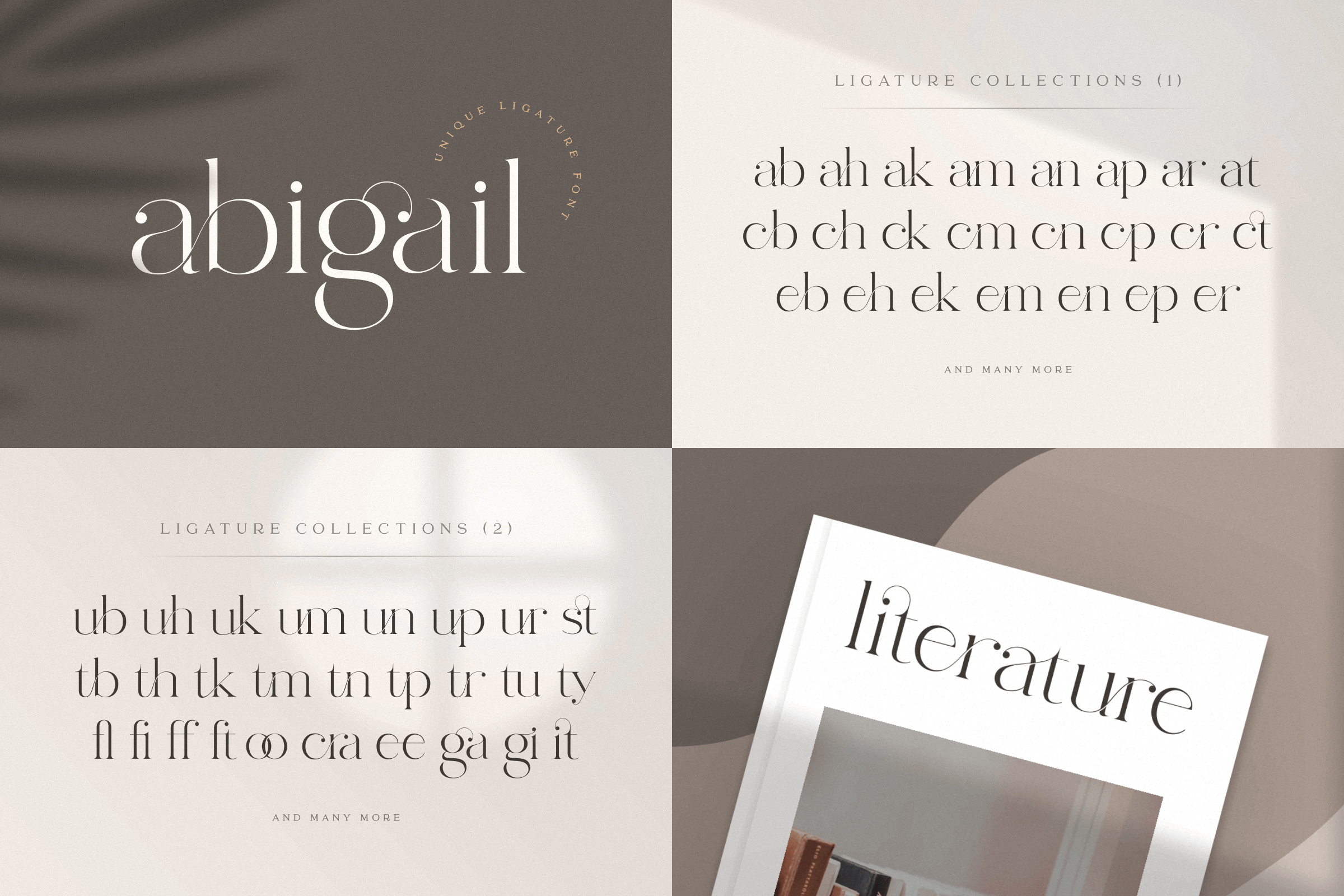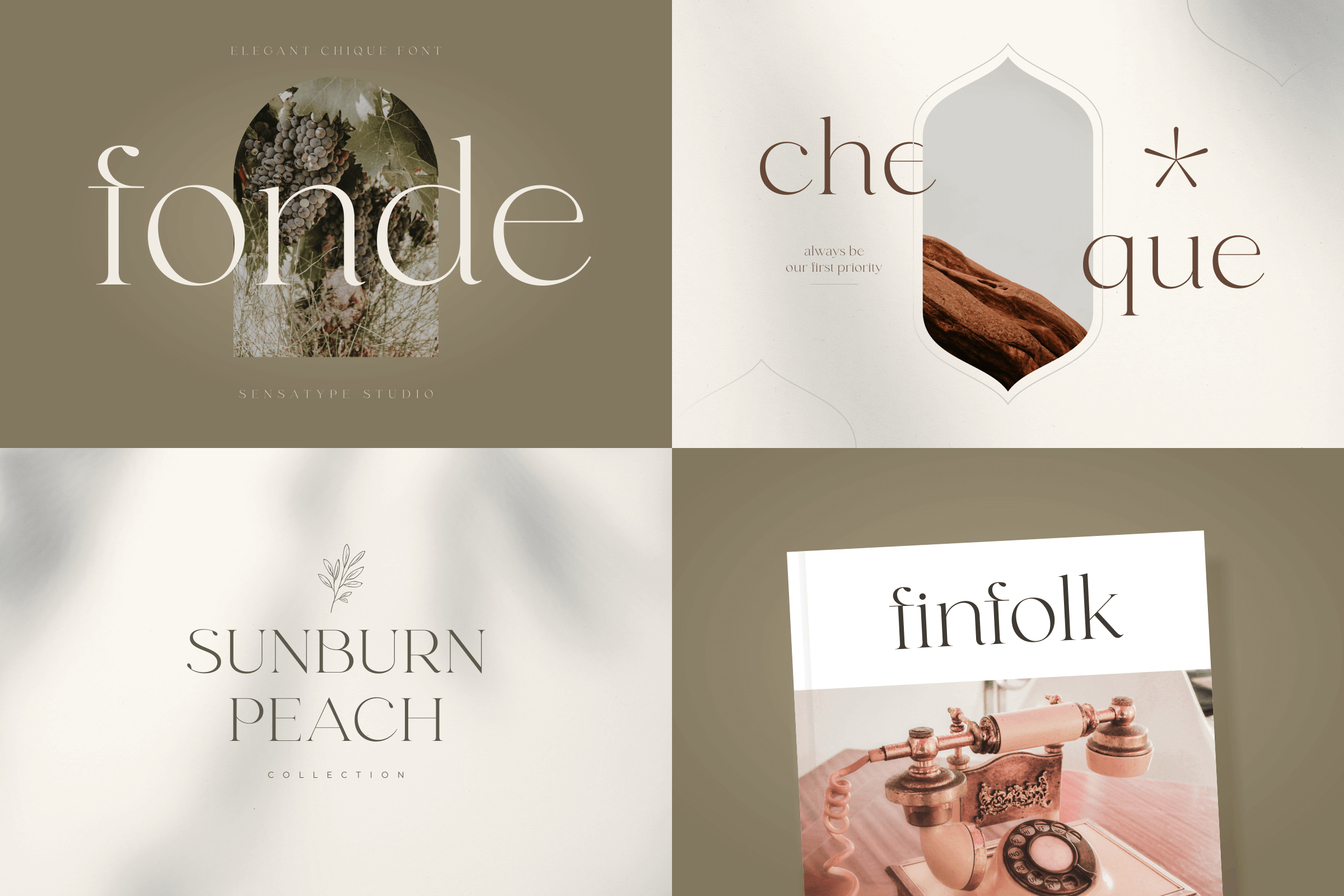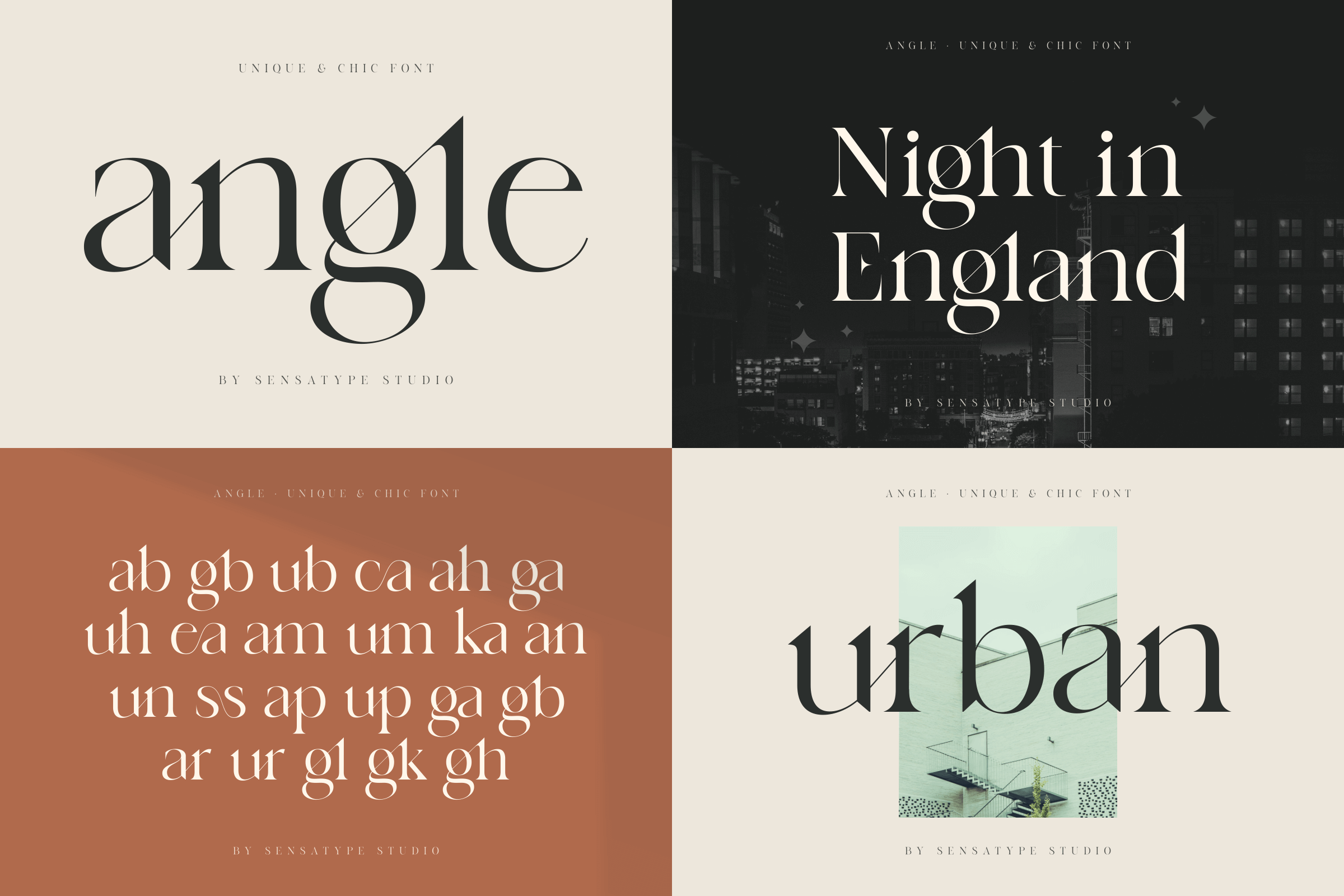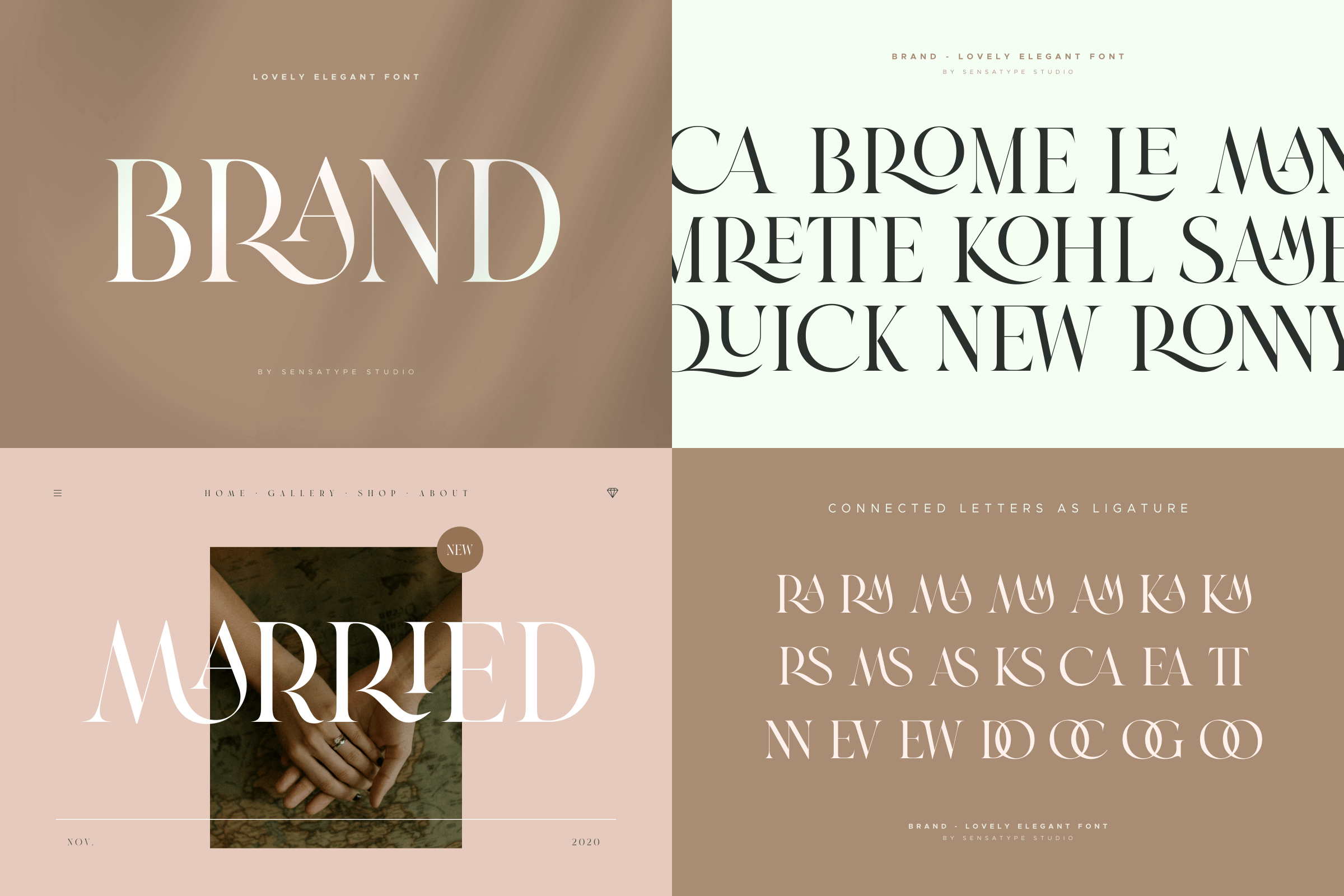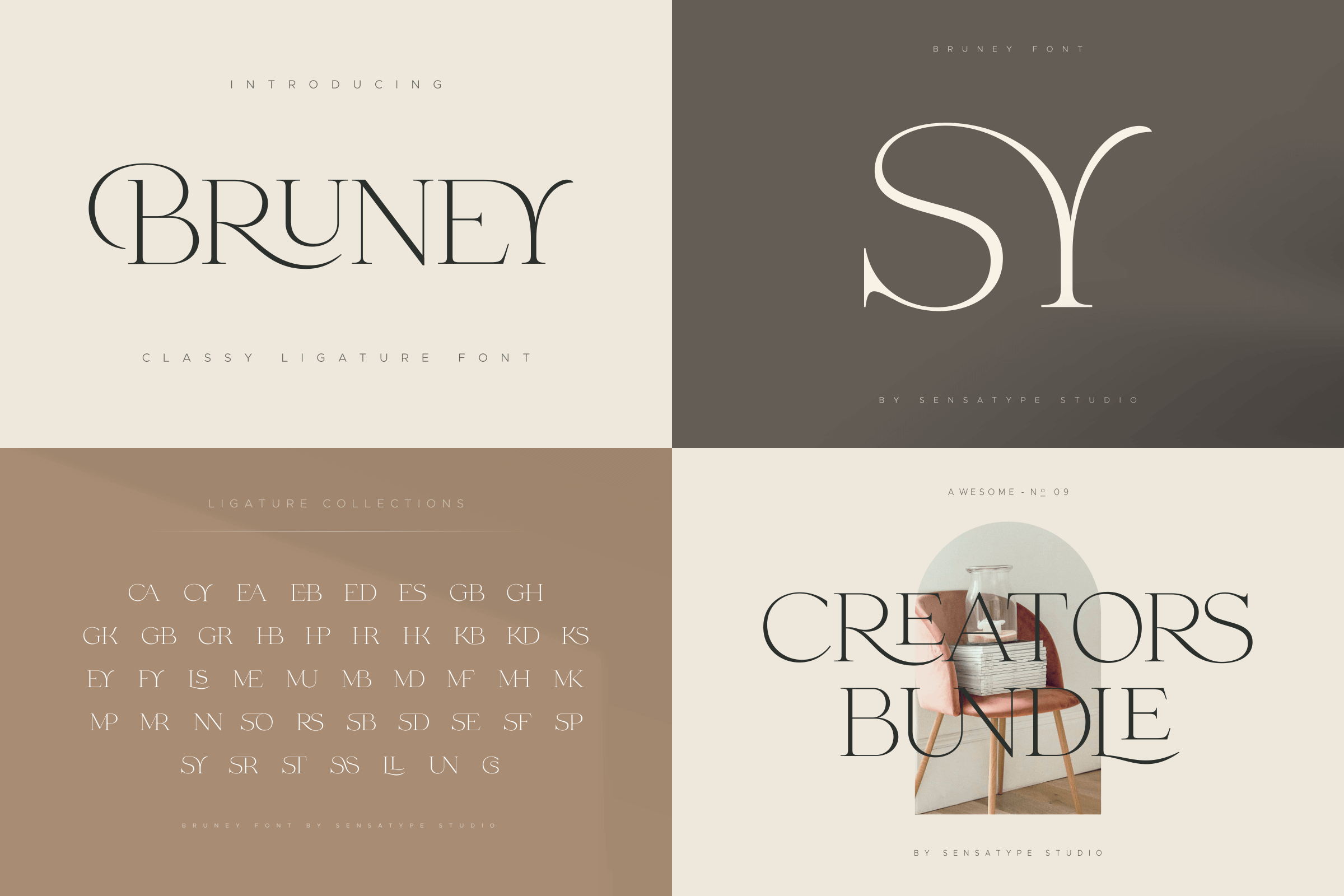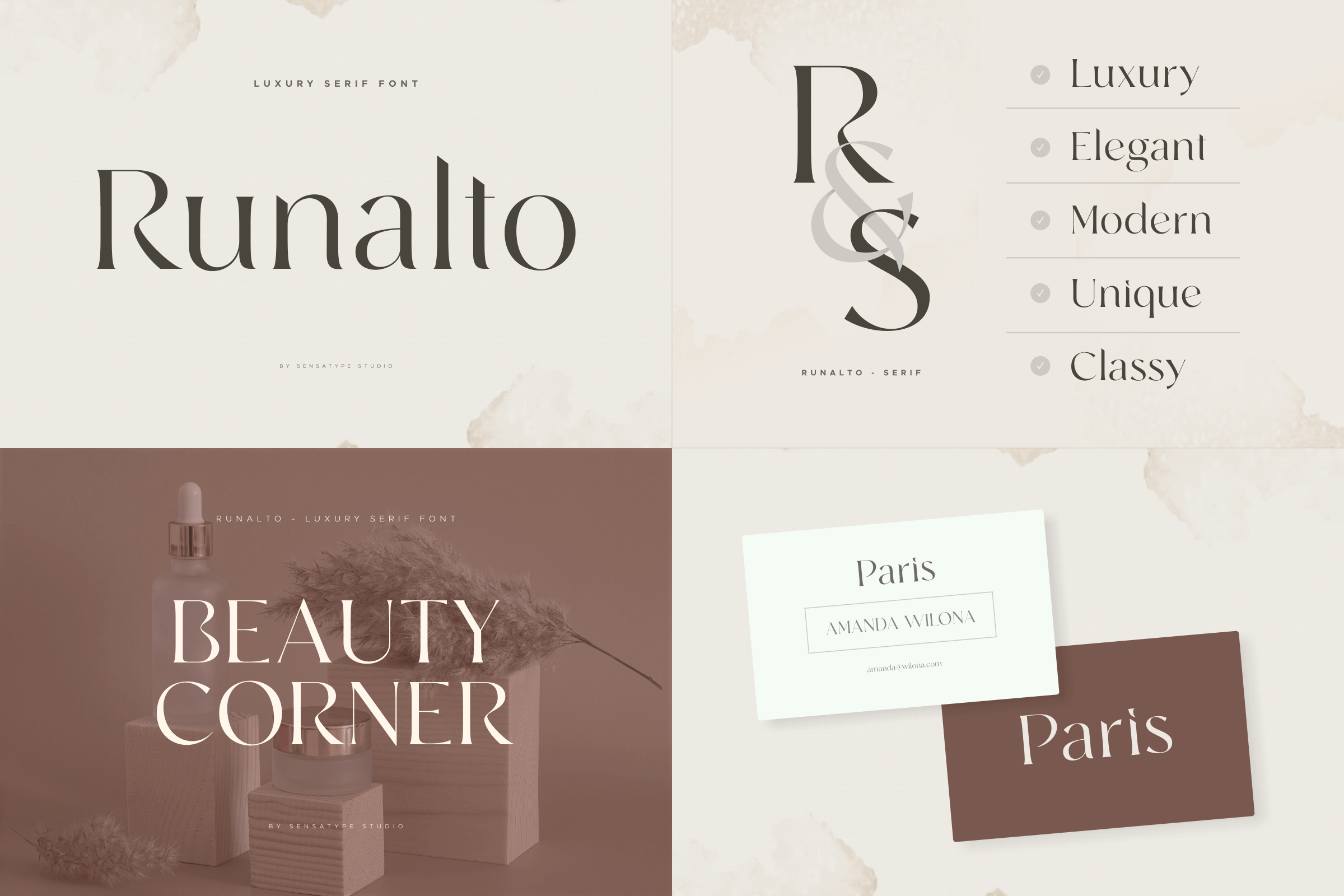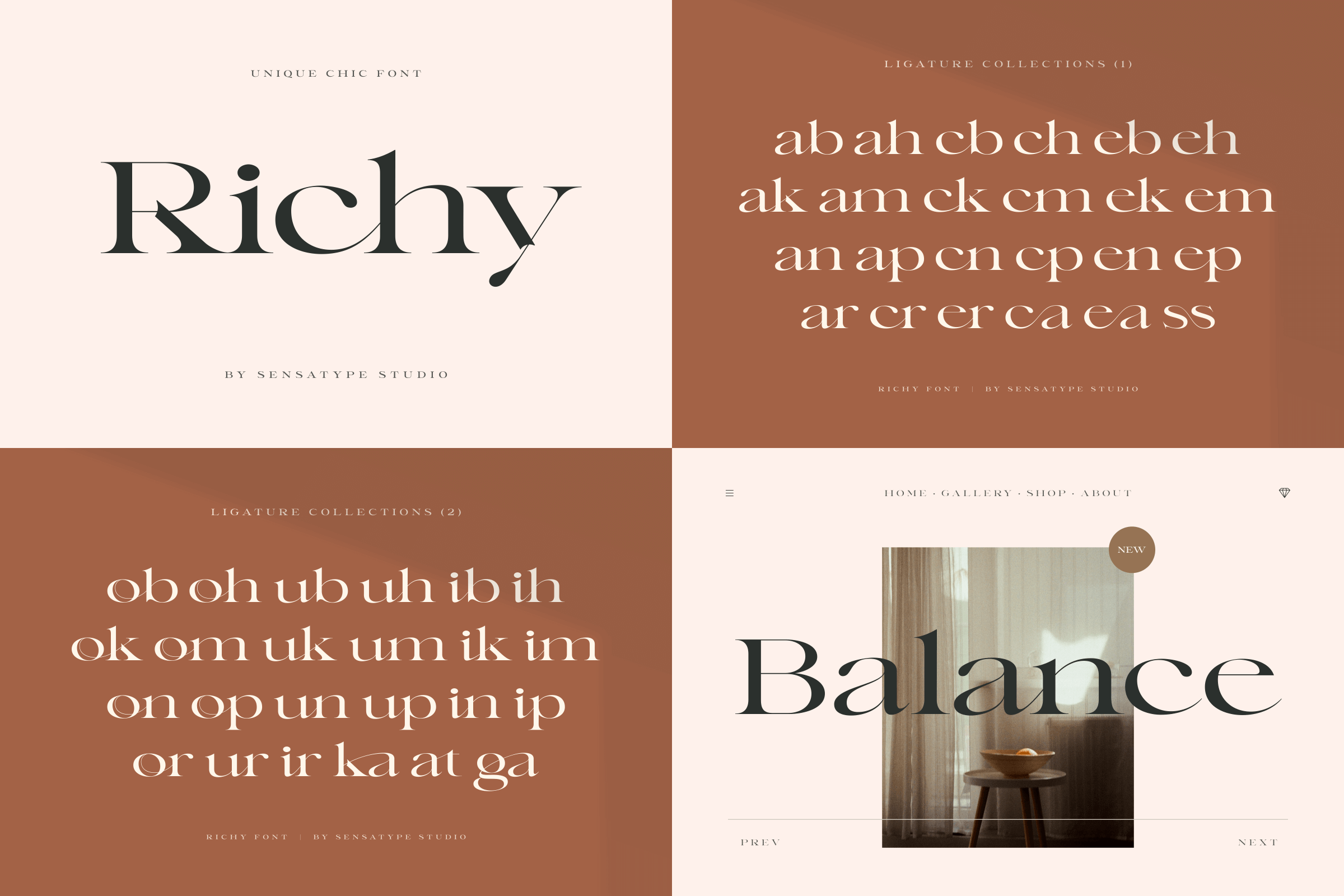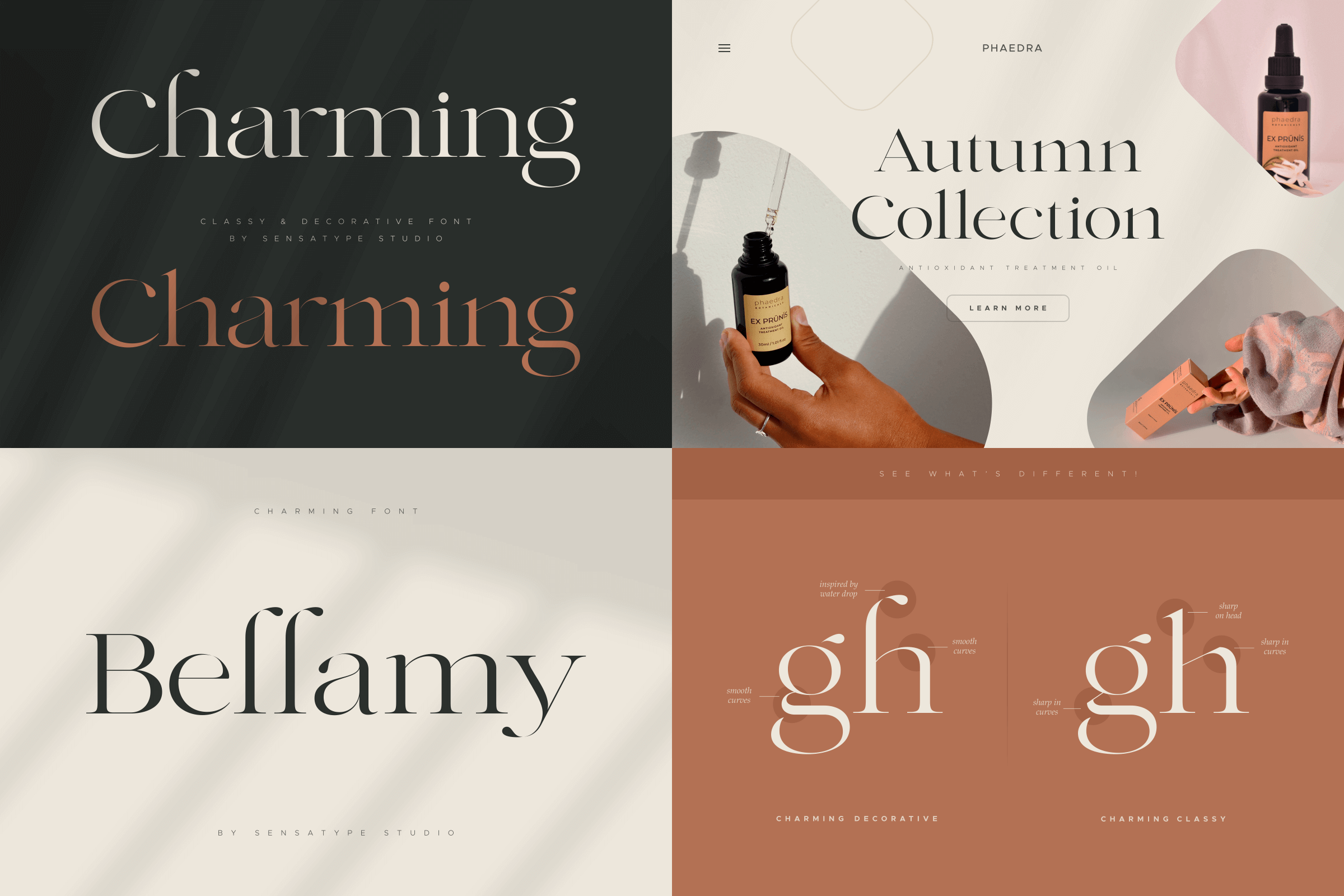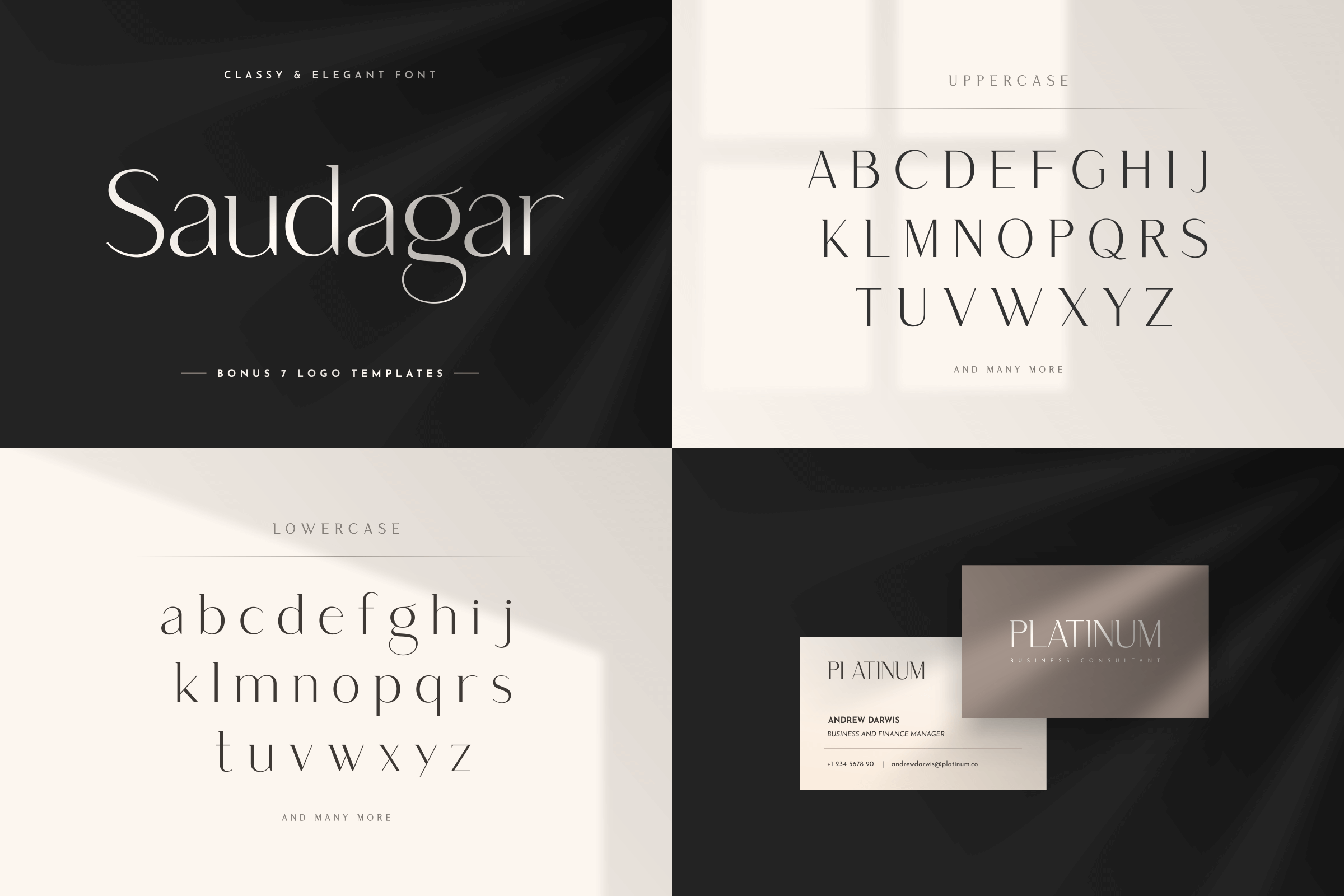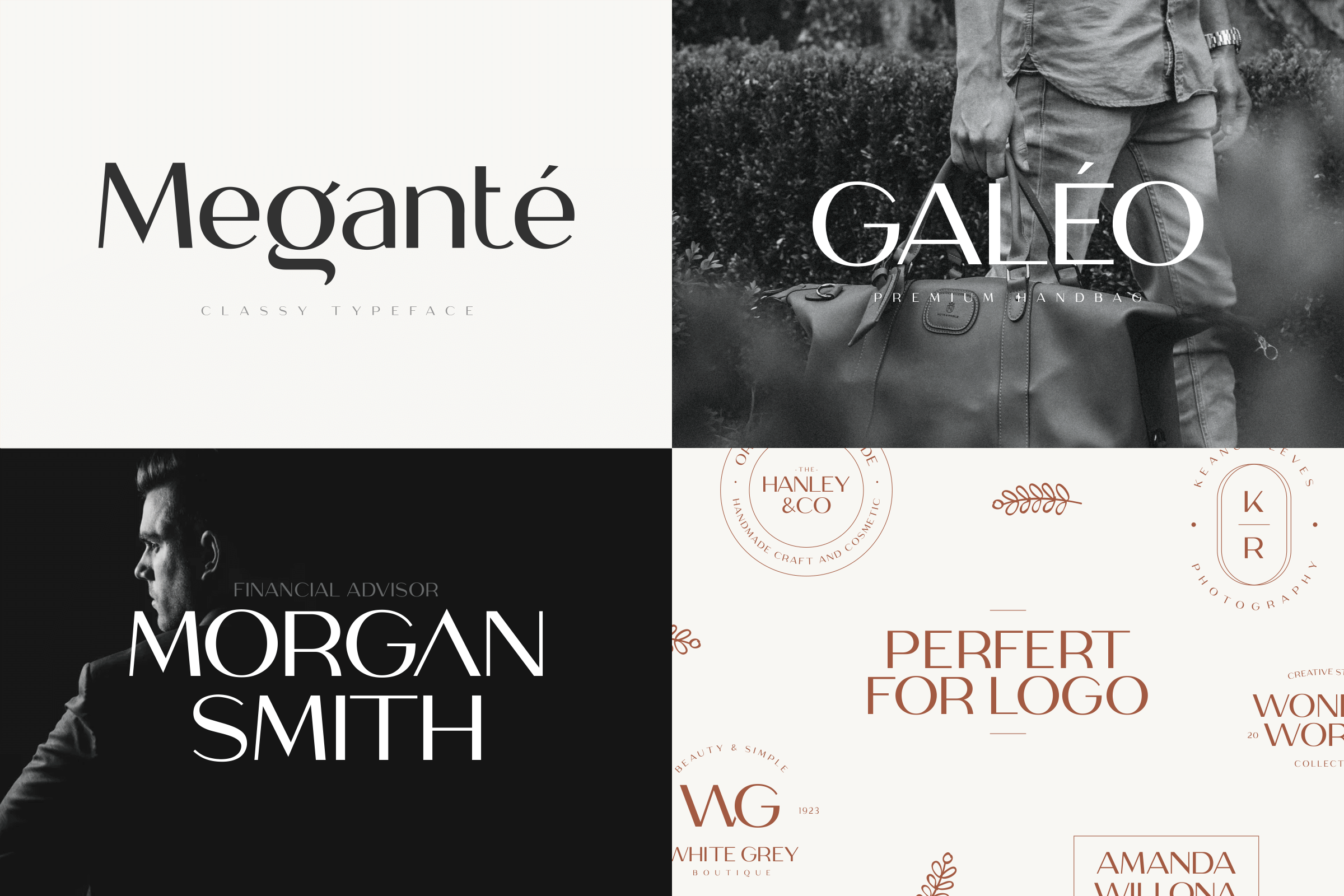
Unique & Classy Font Bundle
Make your projects more attractive with this Unique & Classy Font Bundle.
You will get unique, classy, elegant, and certainly beauty to make your branding or design projects more standout with this font bundle.
Unique & Classy Font Bundle
Unique Branding Modern Font Bundle